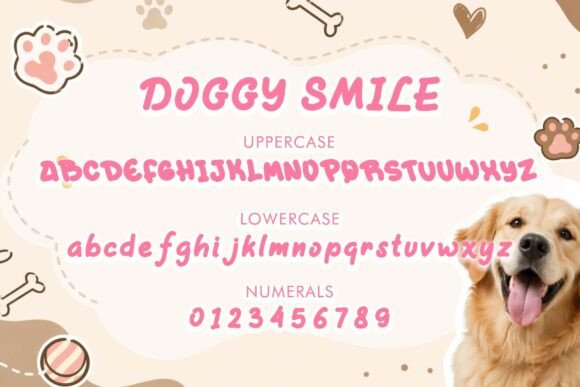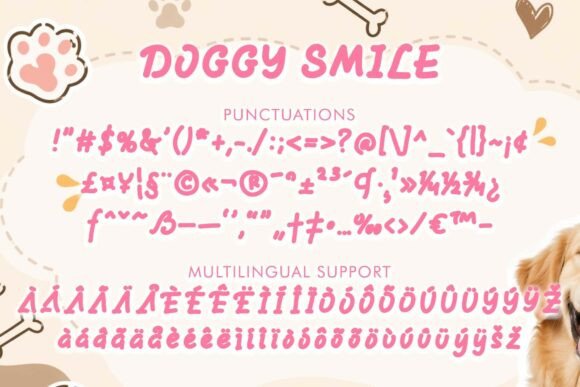
Unleash the Joy of Design with Doggy Smile Font
Have you ever found yourself stuck in a creative rut, searching for that perfect font to bring a smile to your design? You know, that moment when you’re brainstorming ideas for a children’s book or a spring-themed advertisement, and suddenly, a furry friend wags its way into your imagination. That’s where Doggy Smile Font comes in – a delightful display font designed to capture the essence of joy and playfulness.
As a versatile and fun font, Doggy Smile Font is perfect for a wide range of projects, from Easter and Christmas designs to cartoons and comics. Its multilingual support and extensive character set make it a valuable addition to any designer’s toolkit. Whether you’re a seasoned pro or a budding designer, Doggy Smile Font is sure to bring a smile to your face and inspire your next creative project.
Doggy Smile Font Key Features
- Font Family: Doggy Smile Font is a playful, handwritten font that is perfect for creating a fun and casual atmosphere.
- Character Count: The font contains over 200 unique characters, including uppercase and lowercase letters, numbers, and punctuation marks.
- Unique Characteristics: Doggy Smile Font features a unique, hand-drawn style with irregular brushstrokes and subtle texture, giving it a distinctive and eye-catching look.
Design Review: Doggy Smile Font
I recently had the chance to work with the Doggy Smile Font, and I must say it’s a unique addition to any design project. Here’s my honest review.
- Playful and fun vibe: The Doggy Smile Font has a distinct personality that’s perfect for designs aimed at a younger audience or pet-related businesses.
- Customizable: The font comes in a variety of weights and styles, making it easy to customize to fit your design needs.
- High-resolution glyphs: The font’s high-resolution glyphs ensure that it looks great at any size, from tiny to large.
- Limited legibility: In smaller font sizes, the Doggy Smile Font can be difficult to read due to its playful, cursive design.
- Not suitable for formal designs: The font’s lighthearted nature makes it unsuitable for formal or professional designs.
The Doggy Smile Font is a great choice for designs that need a playful, fun vibe. While it may have some limitations, its customizability and high-resolution glyphs make it a solid addition to any design project. Just be mindful of its limitations and use it wisely.
Use the Doggy Smile Font to create playful and eye-catching designs, such as:
– Pet-themed posters and flyers
– Social media graphics and ads
– Custom pet tags and collars
Remember to experiment with different font sizes, colors, and styles to achieve the desired look.
The Doggy Smile Font is perfect for:
– Pet businesses and owners
– Pet-themed events and parties
– Social media campaigns and advertising
– Custom pet products and merchandise
Alternatives to Doggy Smile Font
Compared to Doggy Smile Font, Great Vibes Font is more refined and less playful. While Doggy Smile Font is a bold and cheerful font, Great Vibes Font is softer and more subtle. However, both fonts can be used to create a fun and energetic atmosphere, but in different ways.
Project 1: Dog-Themed Invitations
Using Doggy Smile Font:
Project 2: Dog Training Business Logo
Using Doggy Smile Font:
Project 3: Dog Lover’s Quote Art
Using Doggy Smile Font: